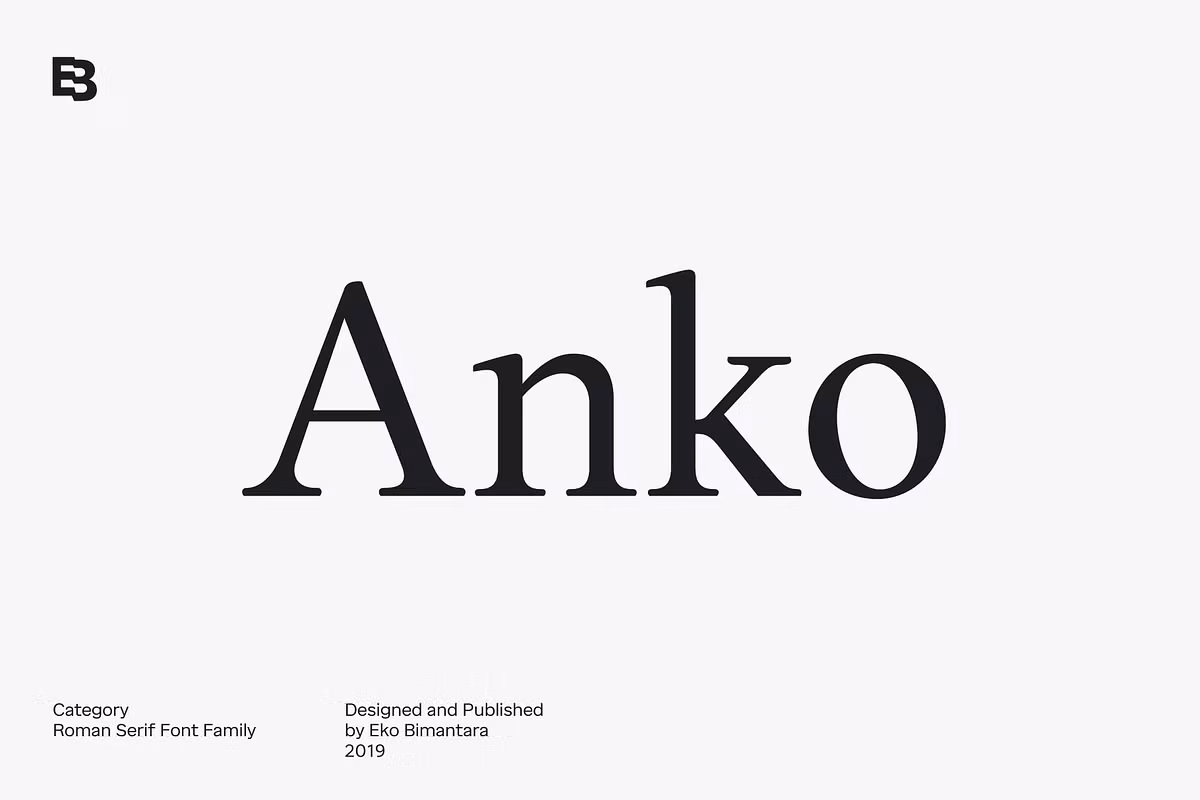
Anko Serif Font Family Free Download
Anko Serif Font Family Free Download is a modern and versatile typeface family designed to bring elegance and readability to your designs. Featuring multiple weights and styles, this font family is perfect for creating logos, branding materials, editorial designs, websites, and more. Its clean, structured serifs and balanced proportions make it ideal for both professional and creative projects, ensuring clarity and sophistication. Whether you're designing for a corporate brand, a creative campaign, or a minimalist website, Anko Serif Font Family Free Download lets you explore its various styles in personal projects before purchasing a commercial license. Add modern sophistication and versatility to your designs with this beautifully crafted serif font family.